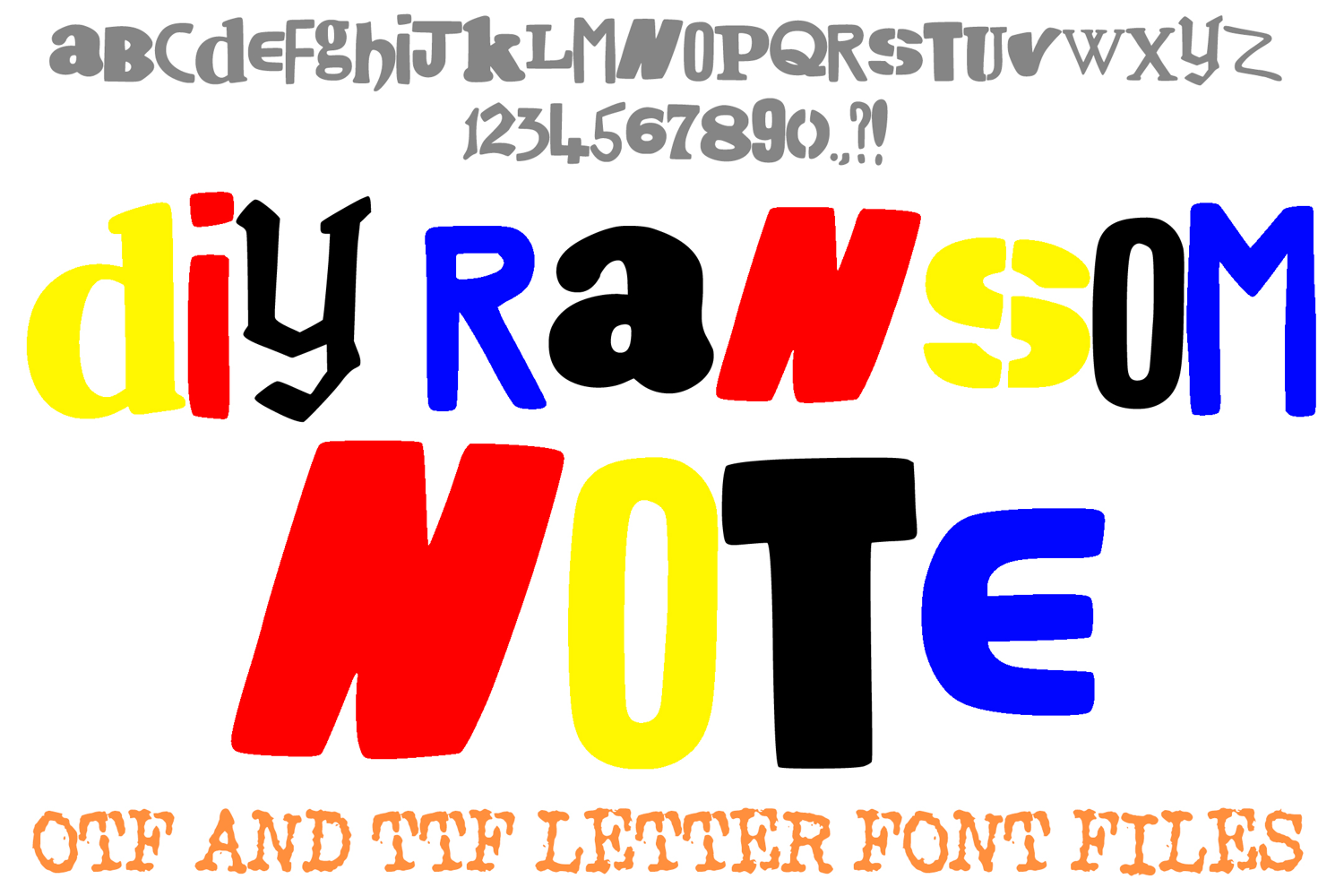
DIY Ransom Note Letters Random Alphabet ABC Text Font OTF
Inject instant edge and personality into your designs with the DIY Ransom Note Letters Font! This bold, high-impact typeface is inspired by the classic look of letters cut from various sources, giving it a wonderfully chaotic, mismatched, and truly unique aesthetic. The font features a varied mix of chunky, stencil-like characters, inconsistent baselines, and mixed styles, perfectly capturing that urgent, DIY feel.
This striking display font is ideal for projects that demand attention, including Halloween designs, edgy branding, rebellious posters, event invitations, punk-rock album art, sticker making, and digital art. Download the DIY Ransom Note Letters Font to give your next project a memorable, subversive punch!